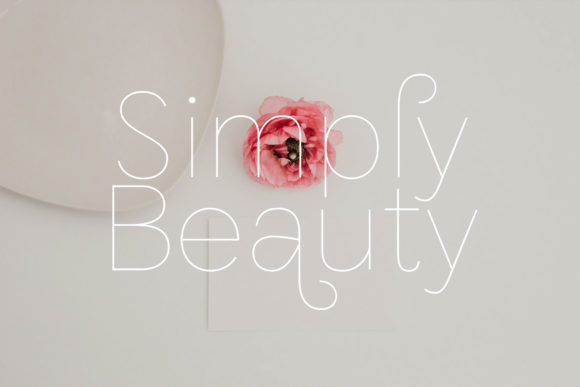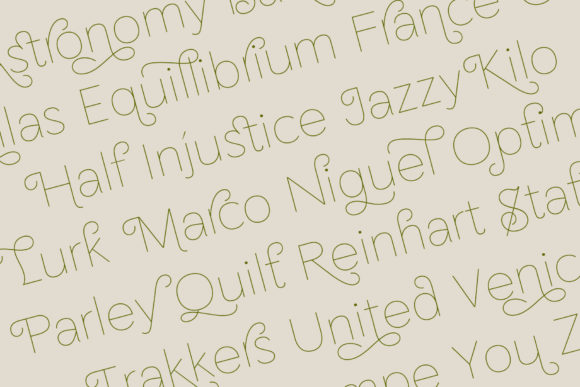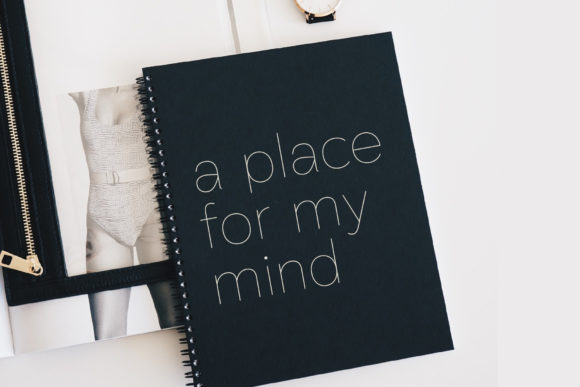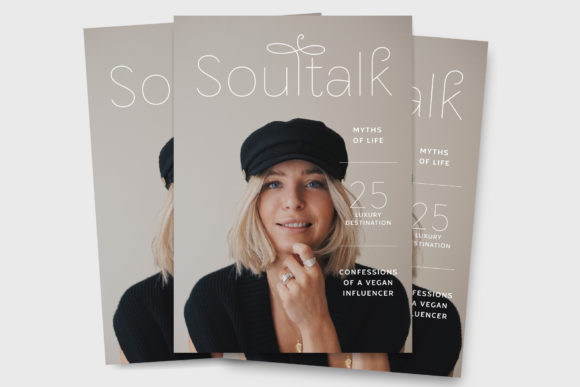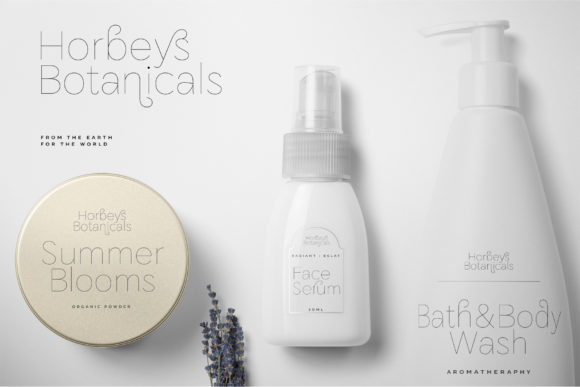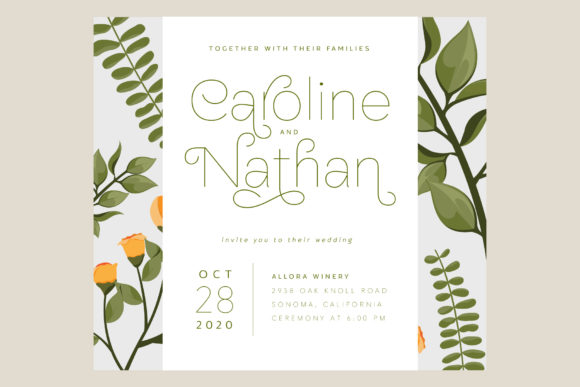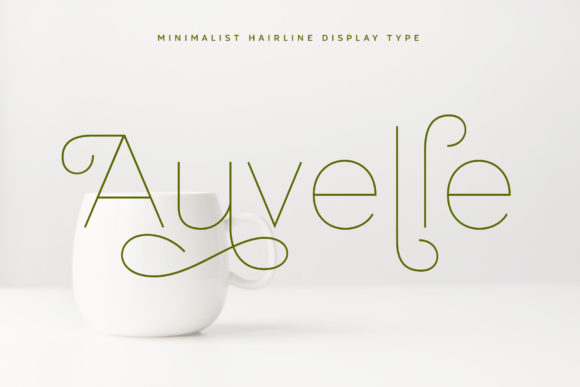
The Auvelle Font: A Designer’s New Best Friend
I’ll never forget the time I was working on a wedding invitation project, and my client asked for a font that was “elegant, yet modern, and not too over-the-top.” I scoured the internet, tried out dozens of fonts, but nothing seemed quite right. That was until I stumbled upon Auvelle Font. ✨
Auvelle is a beautiful, elegant, and thin display font that has quickly become my go-to choice for a wide range of design projects. Its incredibly trendy and versatile design makes it perfect for logos, wedding invitations, headings, t-shirts, letterhead, signage, labels, news, posters, badges, and so much more.
- ✨ Elegant and sophisticated design that’s perfect for high-end projects
- ✅ Highly versatile and can be used for a wide range of design applications
- 🔥 Thin and modern design that’s perfect for headlines and titles
- 👍 Well-spaced and readable, even at smaller font sizes
While Auvelle Font is an amazing font, there are a few things to keep in mind. 🤔
- ⚠️ Some users have reported issues with kerning, particularly with certain letter combinations
- 😐 Limited availability of stylistic alternates, which may limit its use in certain design projects
The Story Behind Auvelle Font
Auvelle Font was designed by a team of typographers who wanted to create a modern and elegant font that would meet the needs of designers and crafters. The font was inspired by classic typography and modern design trends, and it’s been carefully crafted to offer a unique and sophisticated look.
Q: What is Auvelle Font?
A: Auvelle Font is a beautiful, elegant, and thin display font that’s perfect for a wide range of design projects.